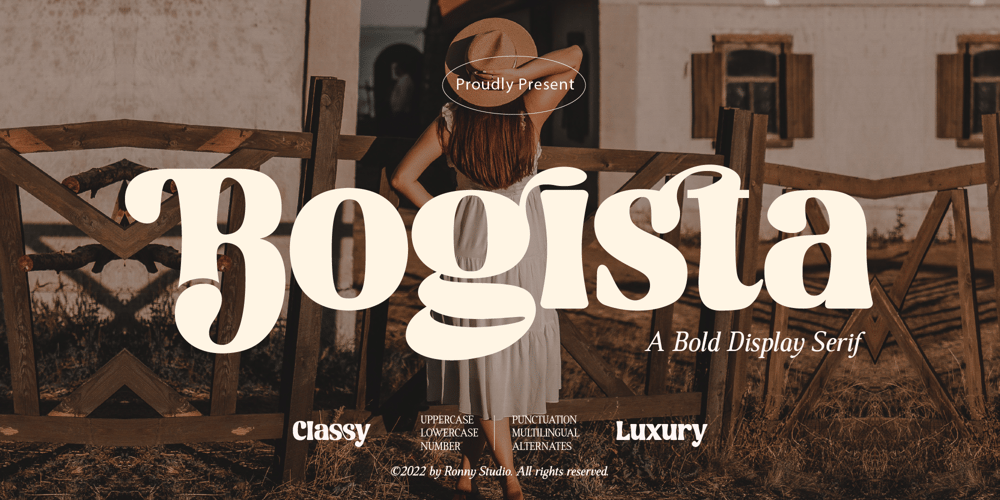
Bogista
Bogista font
Bogista Font Family was designed by Rony Rizki Jaya and published by Ronny Studio. Bogista contains 3 styles and family package options. Bogista is an elegant bold serif display font. This font impresses and features an elegant, professionally shaped font, and as a result, it will easily match a variety of creations that call for a different twist. Add it confidently to your projects, and you’ll love the results.Features :- Lowercase & Uppercase- numbers and punctuation- multilingual- ligatures- alternates- PUA encodedPlease contact us if you have any questions. Enjoy Crafting and thanks for supporting us! :)Thank you